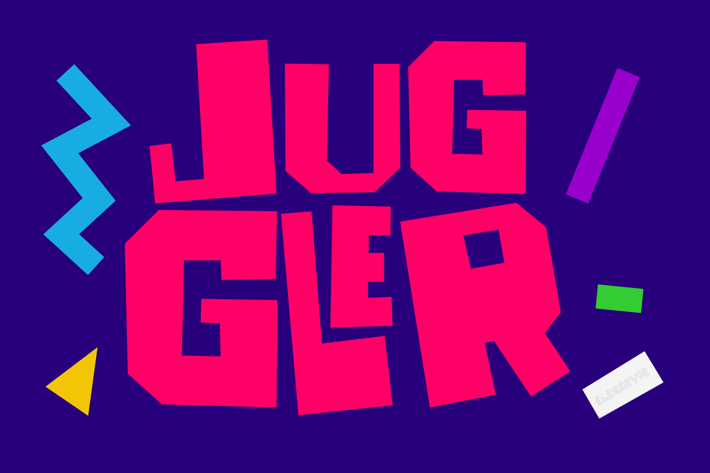
Juggler - Trendy Quirky Font
Juggler is a bold, blocky display font designed to bring playfulness, rhythm, and excitement to your designs. With its chunky, geometric letterforms and dynamic flow, this font is perfect for sports branding, gaming visuals, and vibrant social media content. Whether you're designing motivational posters, urban merchandise, or eye-catching event graphics, Juggler ensures your typography stands out with energy and confidence.
Key Features
Chunky & Bold Letterforms – Perfect for creating high-energy, attention-grabbing designs.
Vibrant & Playful Aesthetic – Great for youthful, fun, and energetic themes.
Perfect for Sports, Gaming & Social Media – Optimized for bold branding and digital presence.
Versatile for Print & Digital Use – Works on posters, product packaging, and animated graphics.
Juggler is ideal for sports enthusiasts, gaming brands, and urban creatives looking to add bold personality to their designs. Its dynamic, geometric style makes it perfect for esports logos, motivational graphics, and high-impact branding. Whether used for streetwear merchandise, action-packed YouTube thumbnails, or festival posters, Juggler gives your designs a vibrant, youthful energy that stands out.